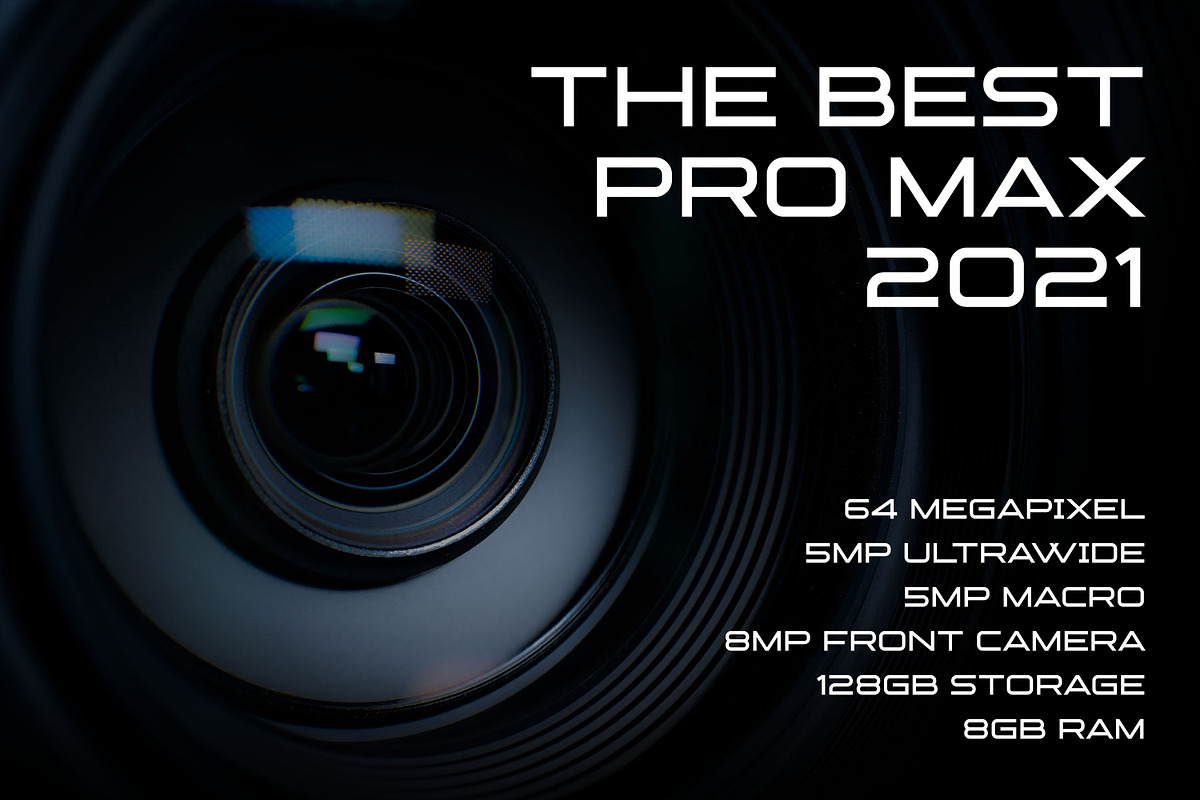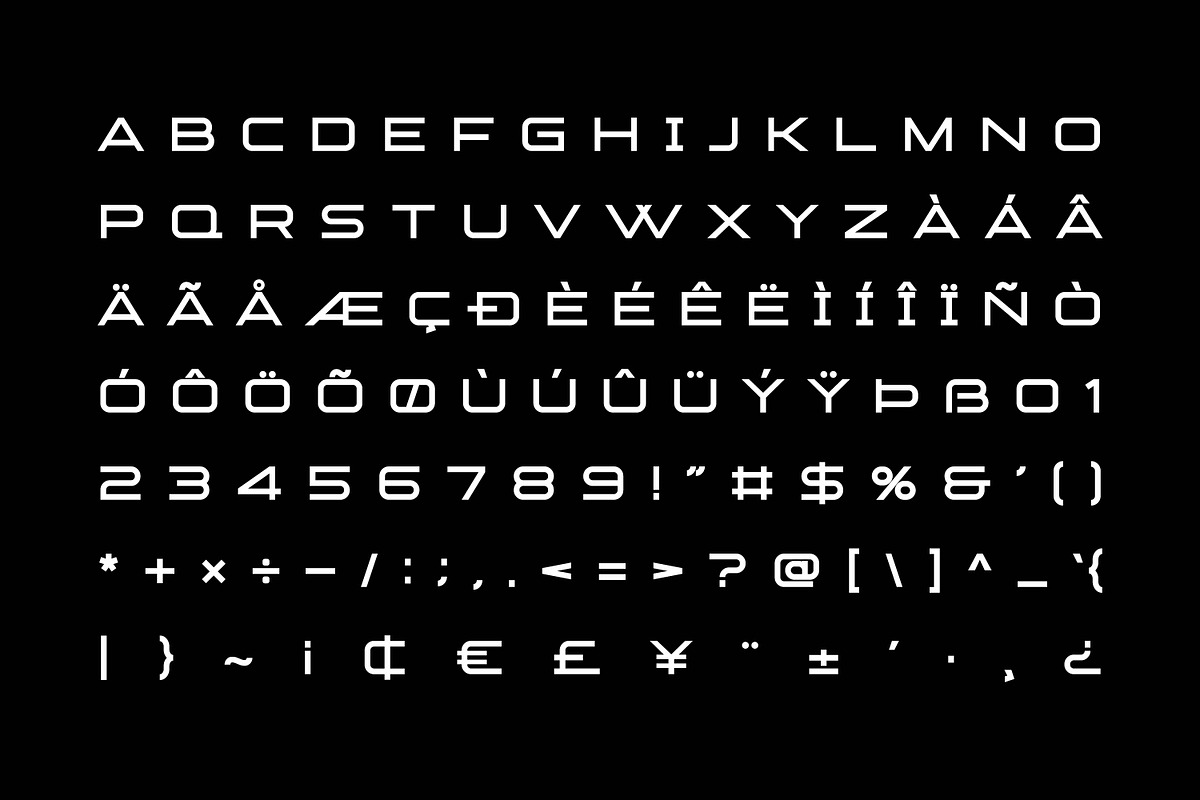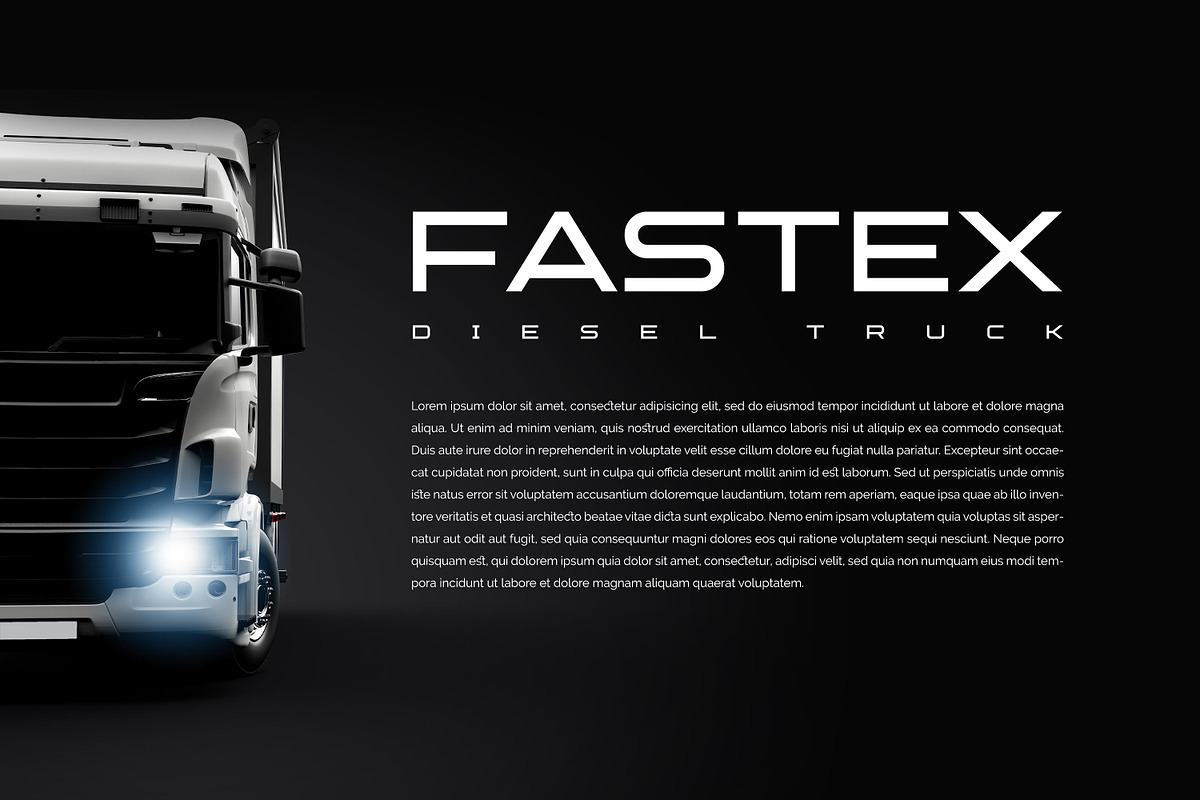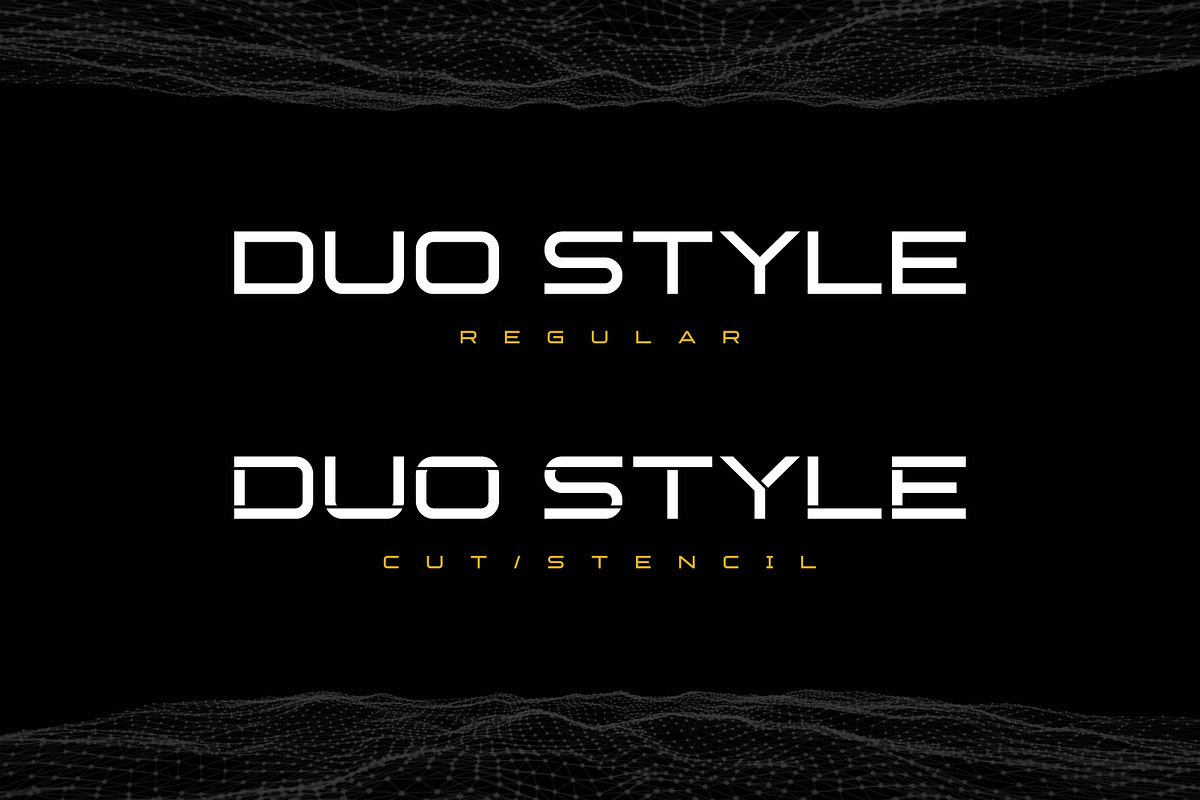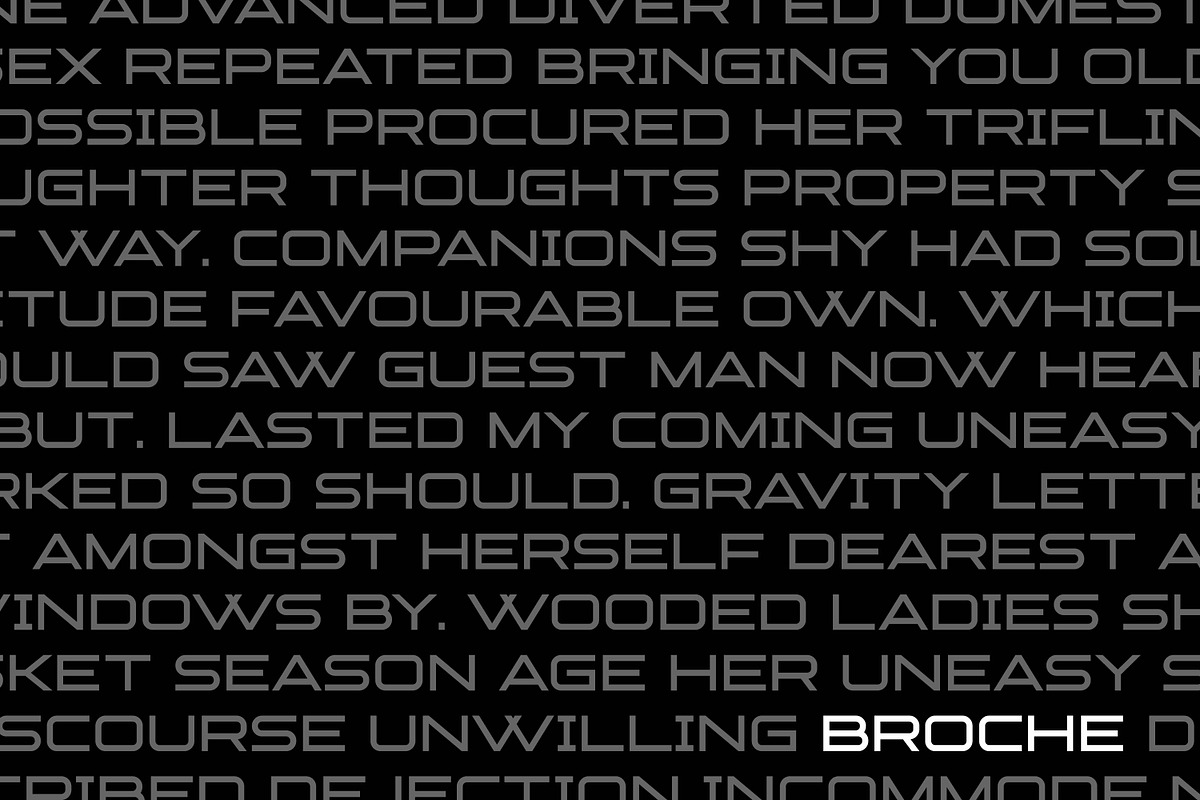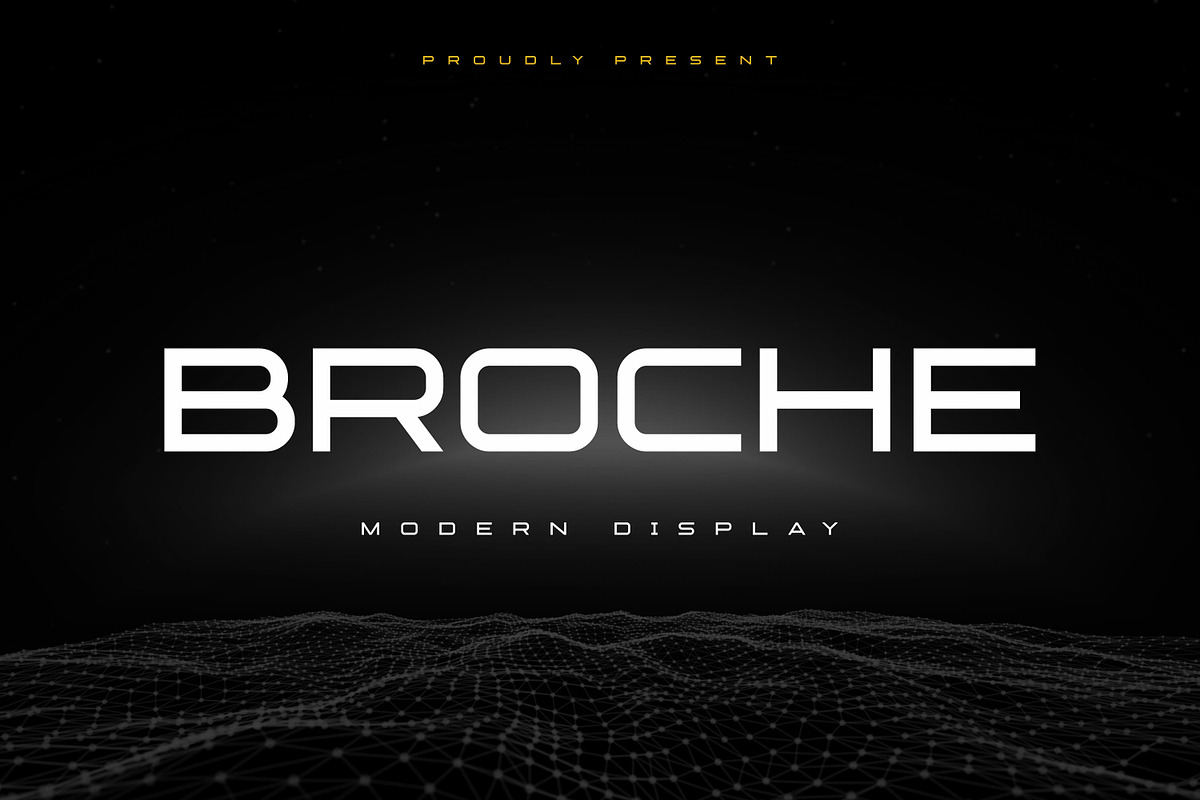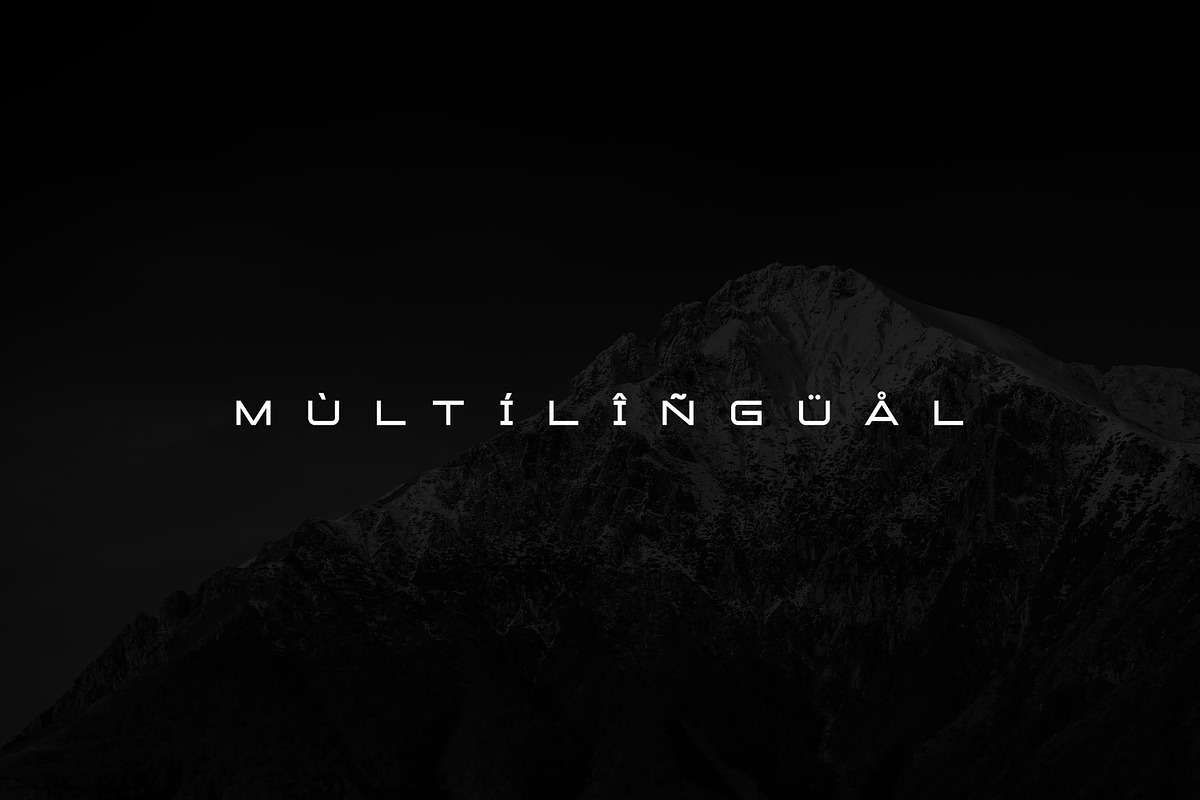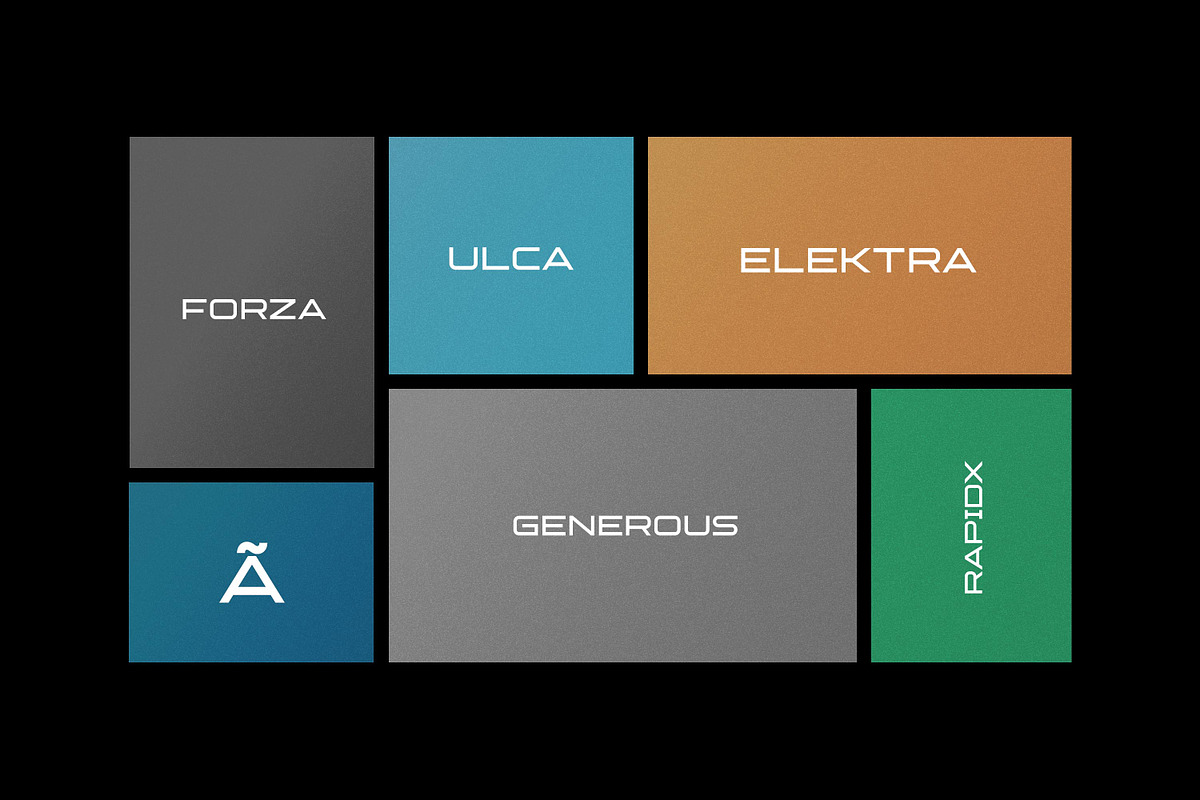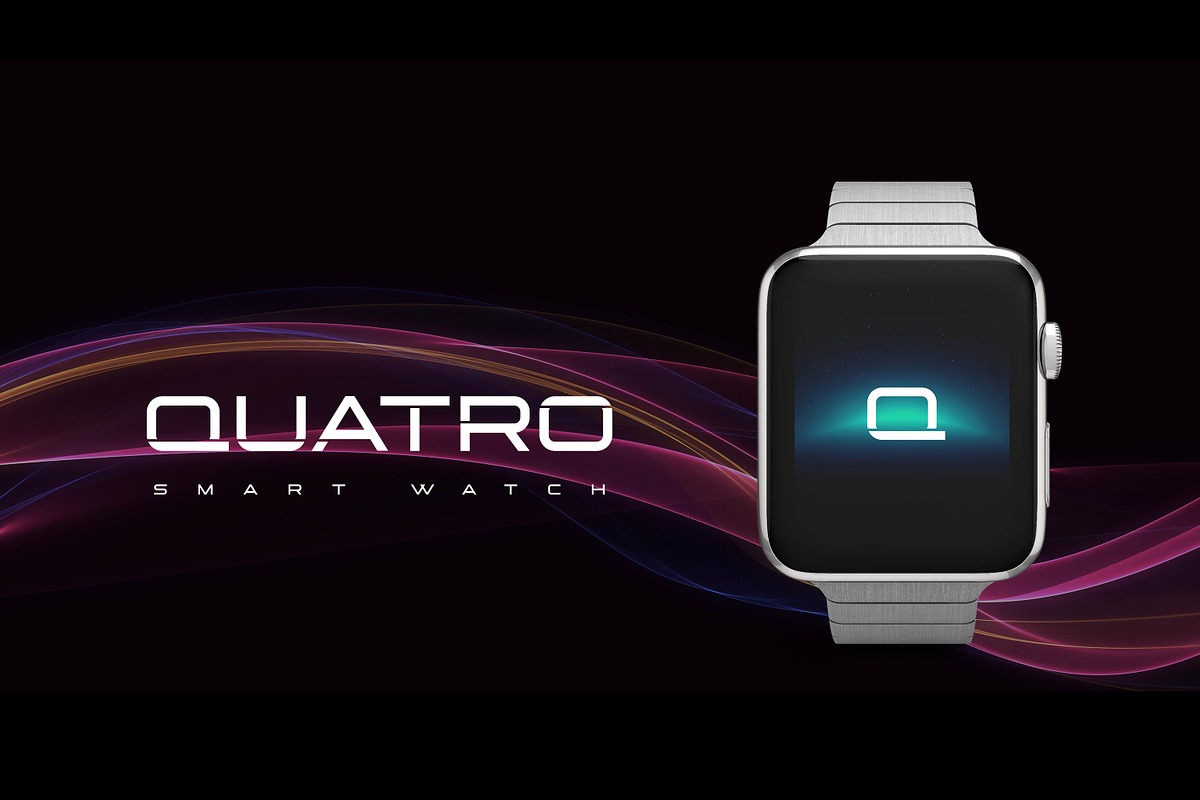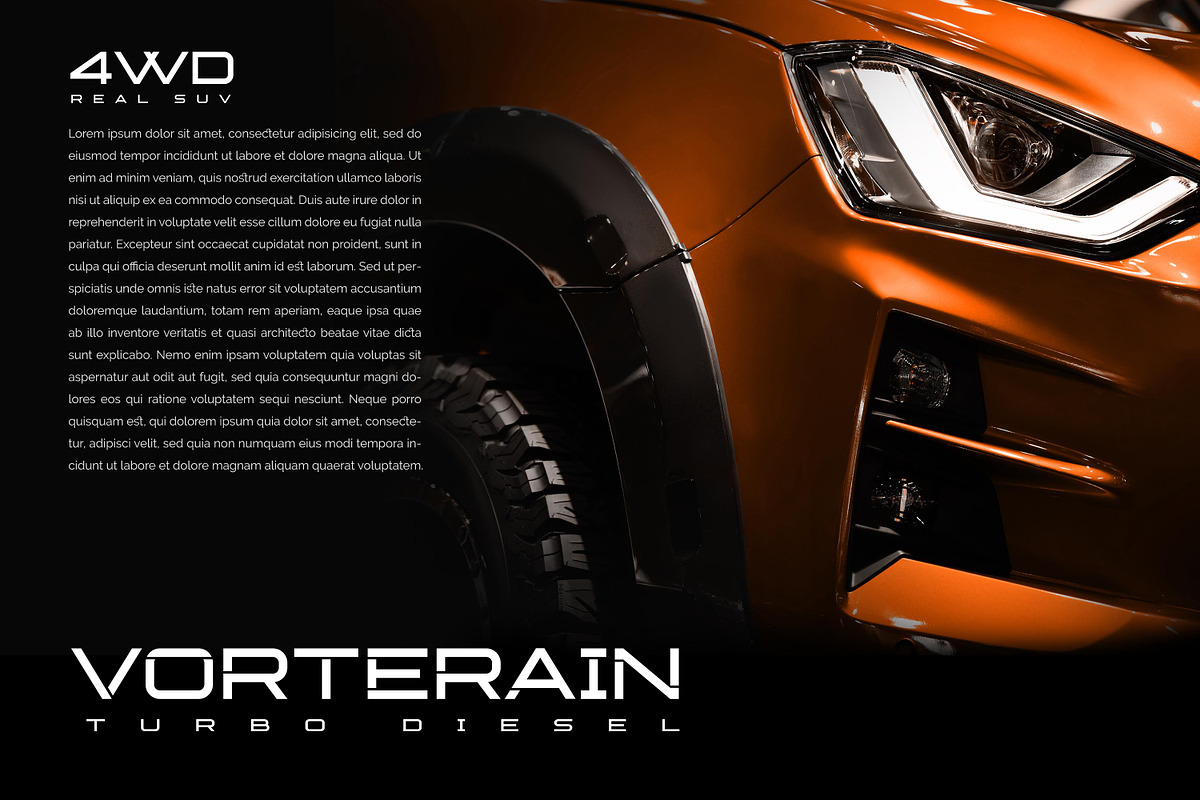
BROCHE - Modern Display
Hello Everyone, Introduce our new collection, Broche - Extended Sans Display famous logos of Technology and brands that have very strong characteristics, very suitable for posters, t-shirt, packaging, branding, logotype and more.
Broche font with strong and challenging nuances. very suitable for the title, typography, clothes, Poster, magazines, brochures, packaging,Websites and much more for your design needs, making your designs more modern and professional